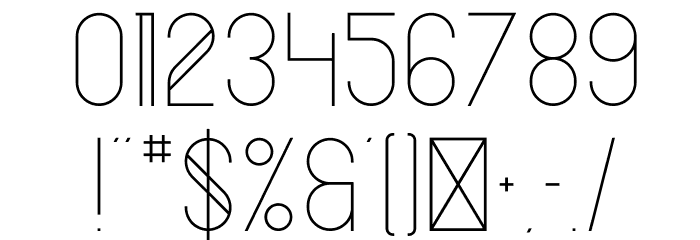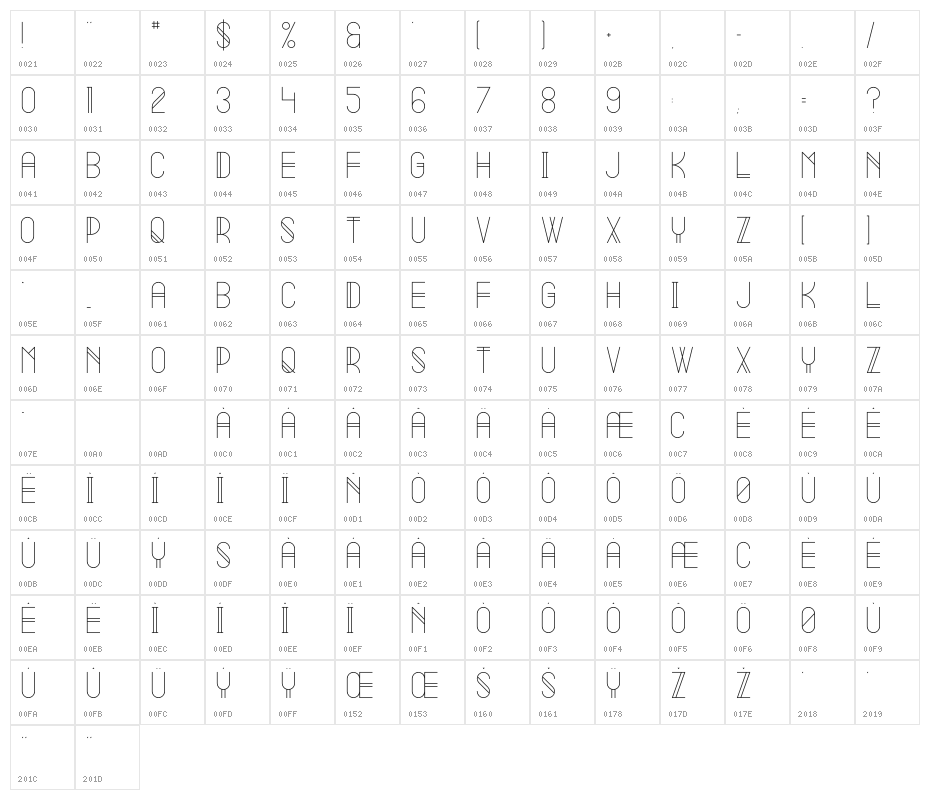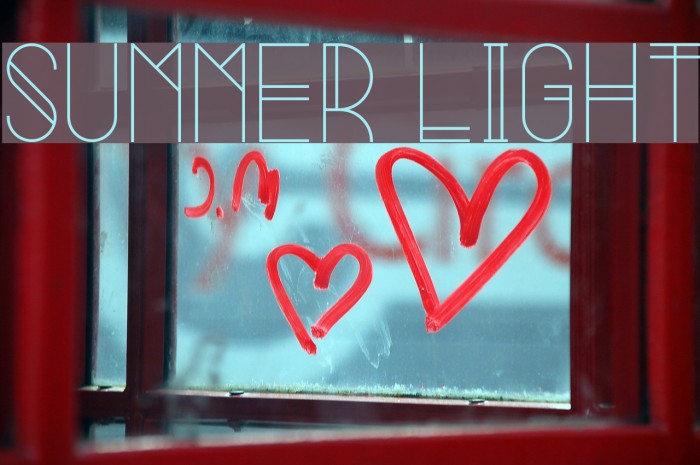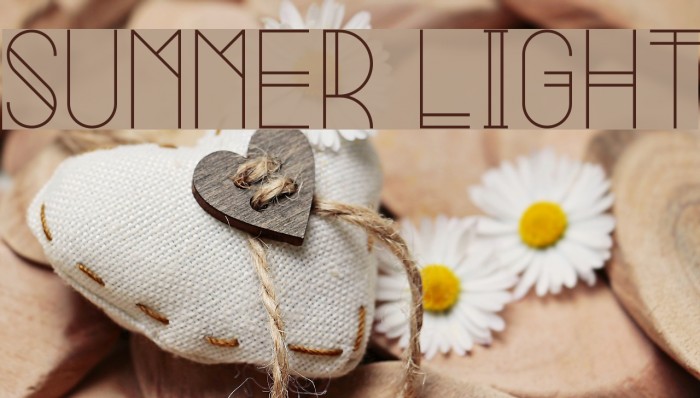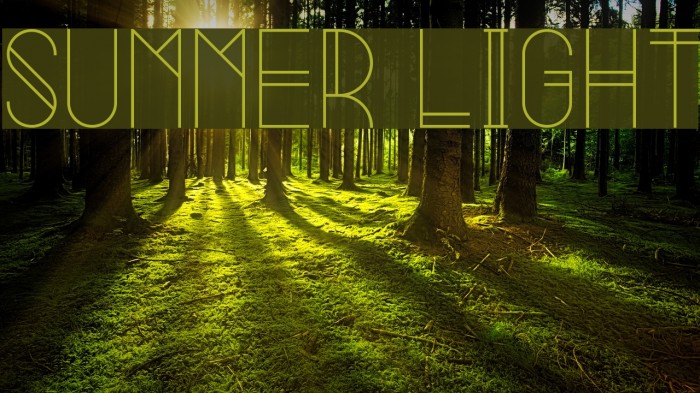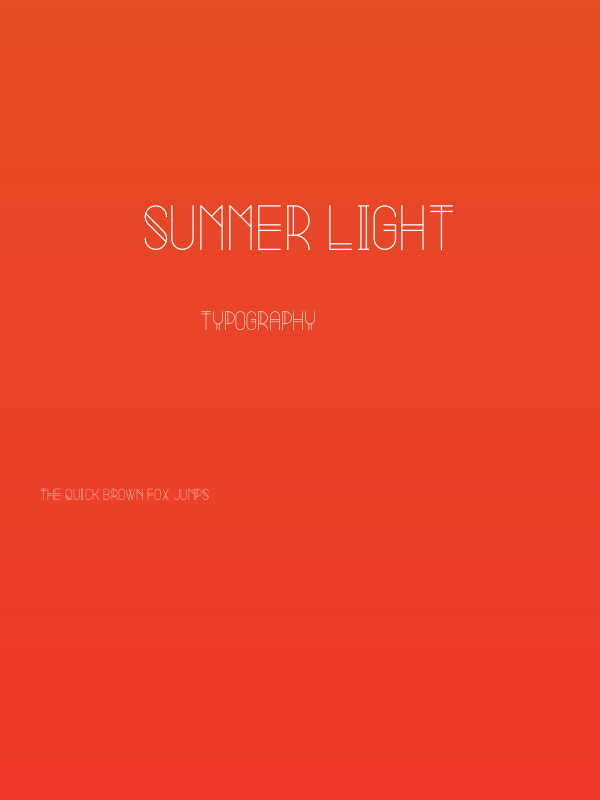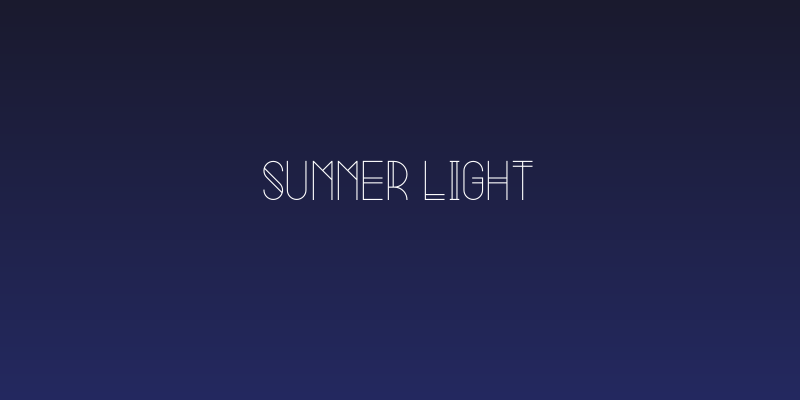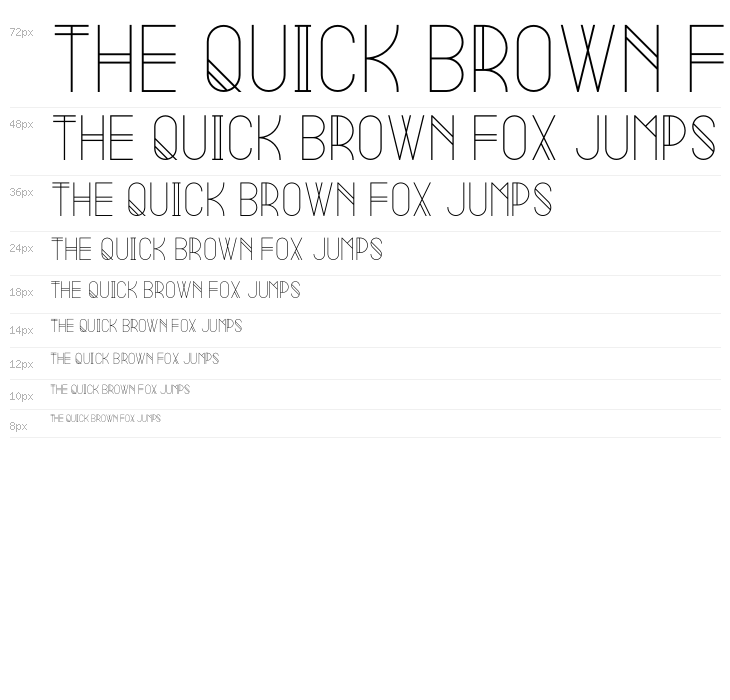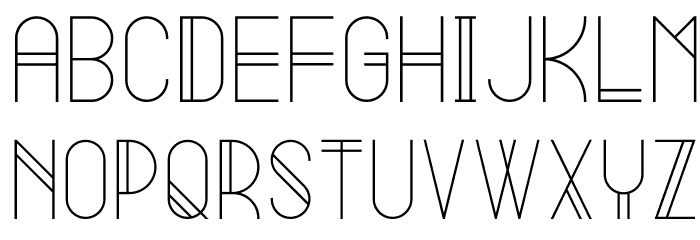
Summer Light Font
Summer Light Description
This font features a modern and geometric design with a distinct linear quality. The characters are constructed with thin, uniform lines that create a minimalist and airy appearance. The uppercase letters exhibit a unique blend of straight lines and subtle curves, giving them a contemporary edge. The lowercase letters maintain a consistent style, complementing the uppercase with their sleek and elongated forms. Numbers are designed with the same precision, ensuring readability and style. Special characters are crafted to match the overall aesthetic, making this font versatile for various applications. Its clean and open design makes it suitable for projects that require a modern and sophisticated look.
| Use Case | Headlines, Logos, Editorial Design |
| Proposed Projects | Ideal for branding, editorial design, modern websites, and minimalist posters. |